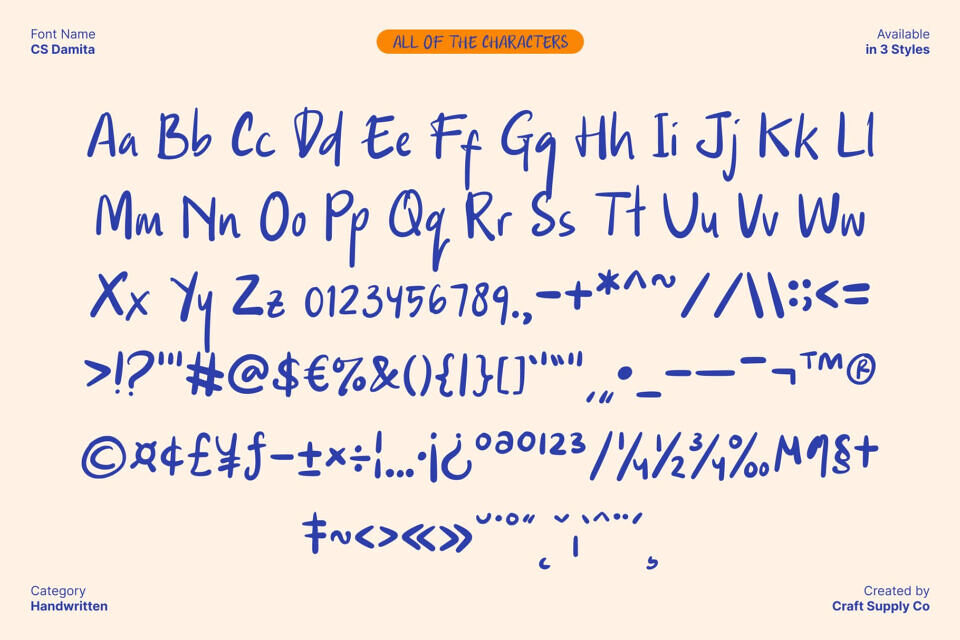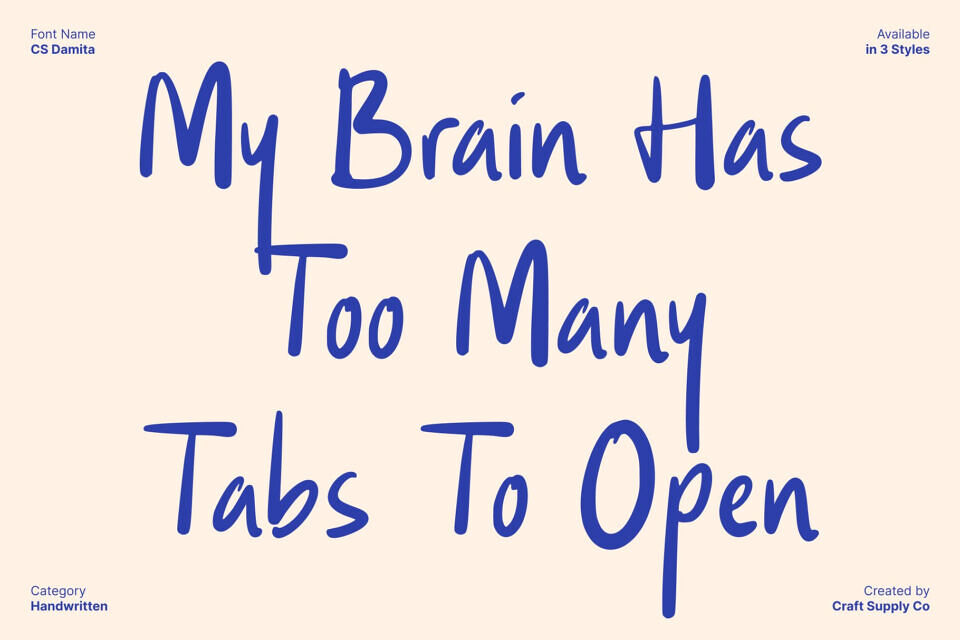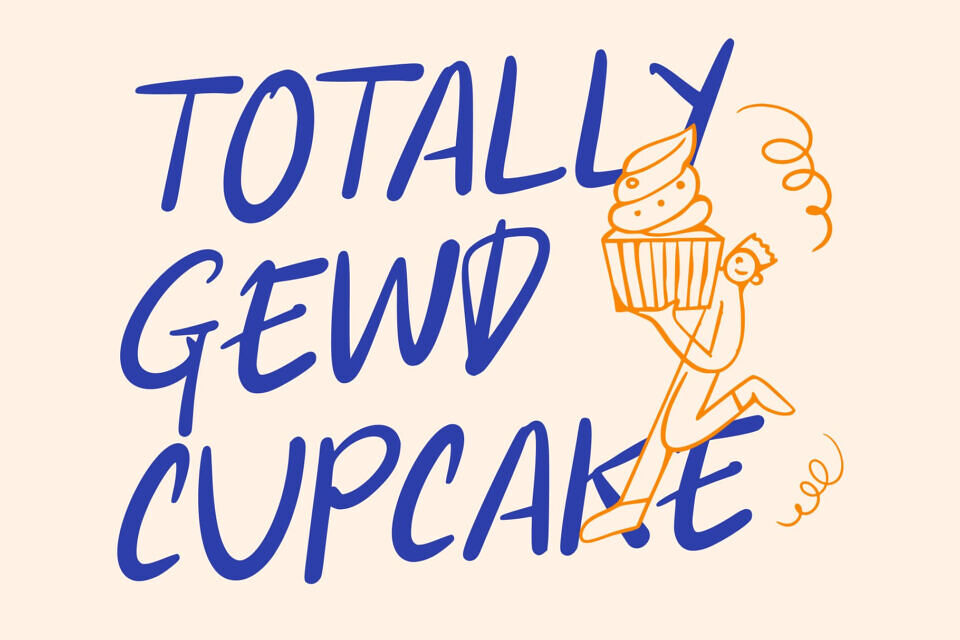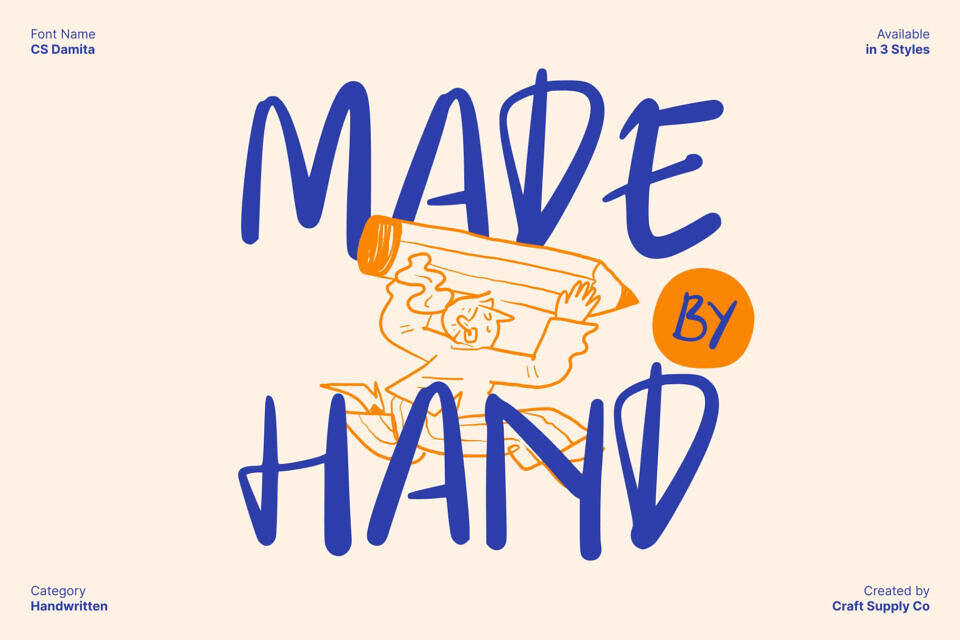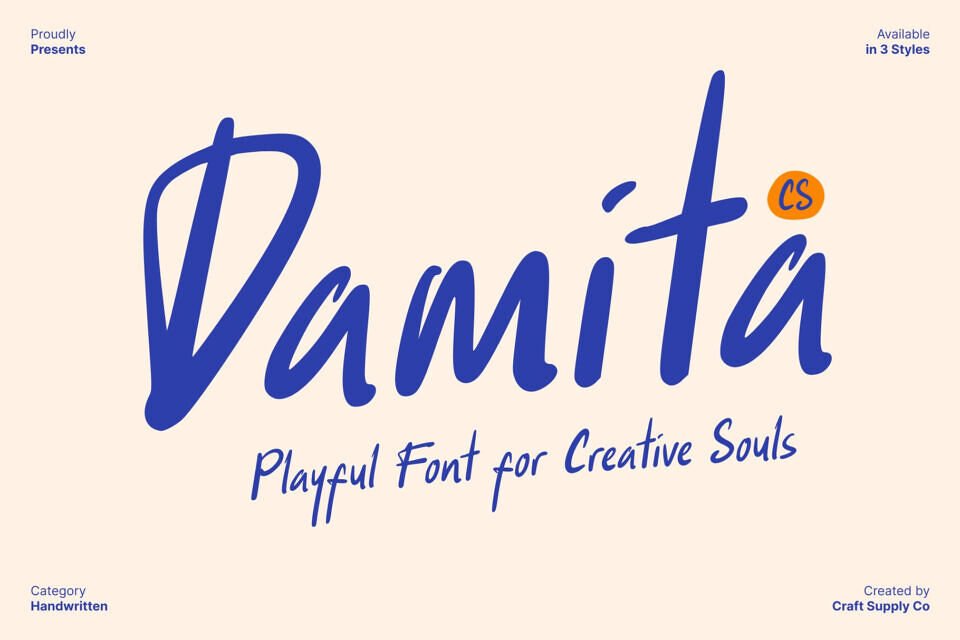
CS Damita Font
This is a handwritten display font designed to capture the soft, expressive beauty of real pen strokes. Its gentle curves and organic movement create a soothing handwritten feel that looks sincere and inviting. Each letter carries a touch of natural charm, making the font perfect for designers who want to communicate authenticity, warmth, and personal connection through their typography.
Ideal for personal branding, quotes, and casual invitations, brings warmth and authenticity to a wide range of design projects. Use it for signature-style logos, heartfelt social media posts, friendly greeting cards, event materials, or journaling aesthetics.